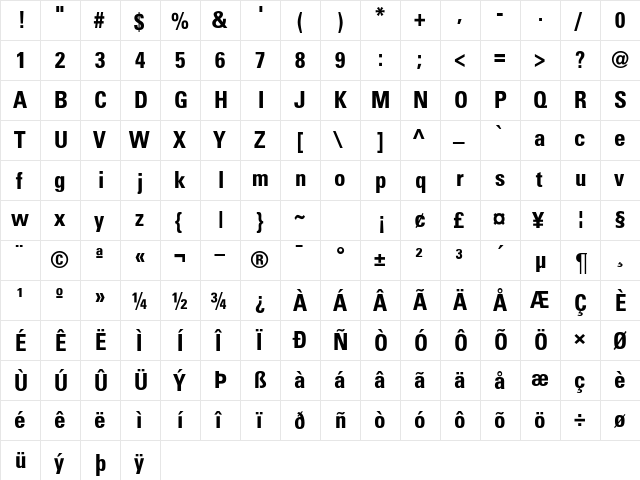
UnfugCondensed Bold Font Preview
Design Context for UnfugCondensed Typeface
UnfugCondensed offers clean, dependable letterforms without strong stylistic allegiance, making it a practical choice for designers who need flexibility. The heavy weight commands attention and anchors typographic hierarchies. The condensed width makes it efficient for tight spaces without sacrificing legibility.